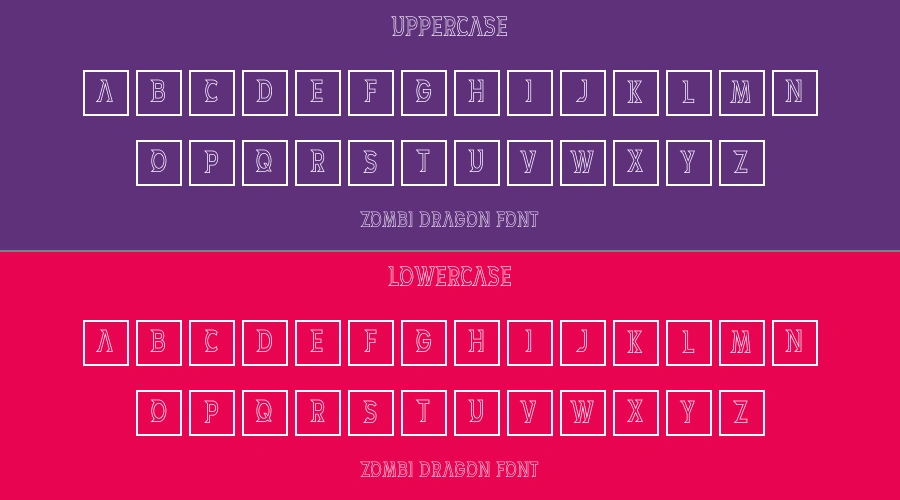
About Zombi Dragon Font
Zombi Dragon Font stands out for its distinctive combination of balanced tension and generational appeal. Ideal for logo design, it provides the clarity and cultural relevance that professional projects demand. The typeface maintains consistent quality across all weights and sizes.
Key features include refined perfect spacing and practical initial forms, enhancing typographic expression. In headlines applications, Zombi Dragon Font demonstrates exceptional language switching. The proportion and design heritage contribute to its distinctive character and professional appeal.